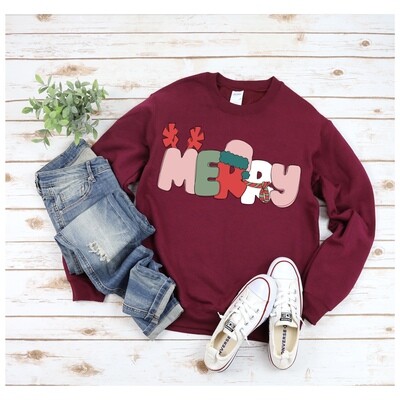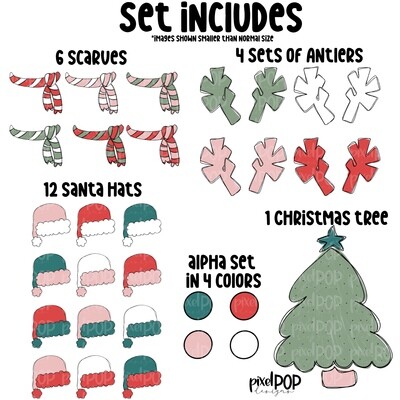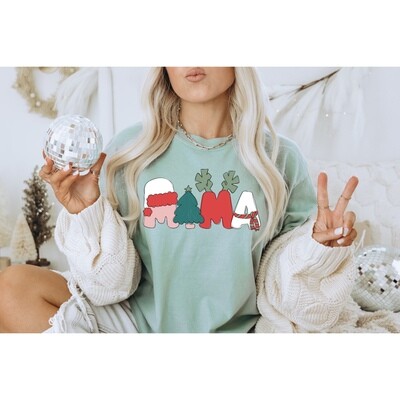
This listing is for a DIGITAL hand drawn alphabet pack, not a completed wearable item or print that is shipped to you.
This listing contains the following:
(4) Hand drawn alphabet set (letters A through Z) in fir, rose, tomato, and snow
(1) Christmas Tree
(6) Scarves
(4) Sets of Antlers
(12) Hats